Legibility
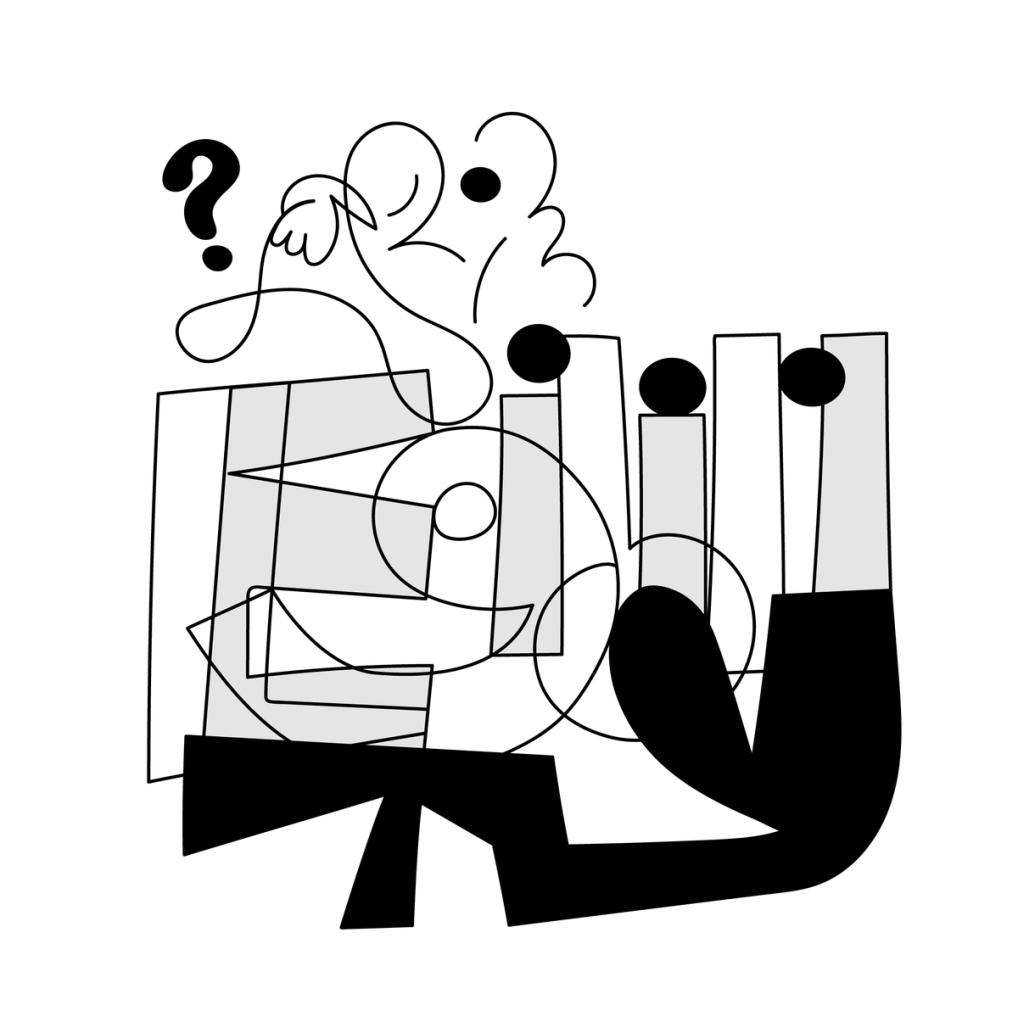
Legibility is about how easily a text can be read thanks to the identification of each character.
In typeface design, some shapes allow a glyph to be recognized more easily than others, generally due to the readers’ familiarity.
It is a subjective concept that can vary with context, culture and history. The meaning of legibility and readability is often mixed up.
The Visible Word, Herbert Spencer, Lund Humphries, 1969.